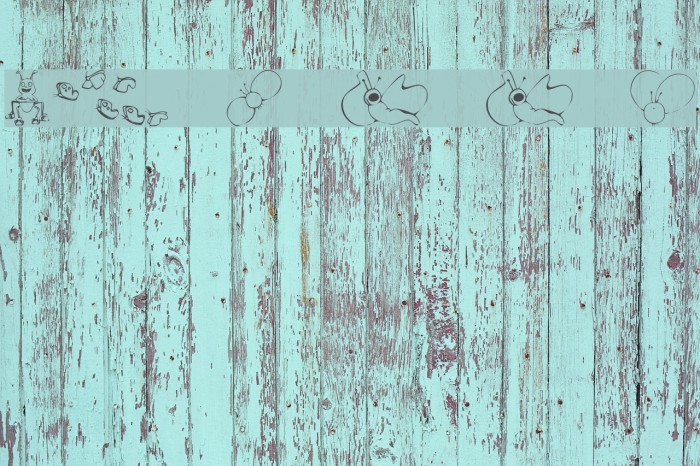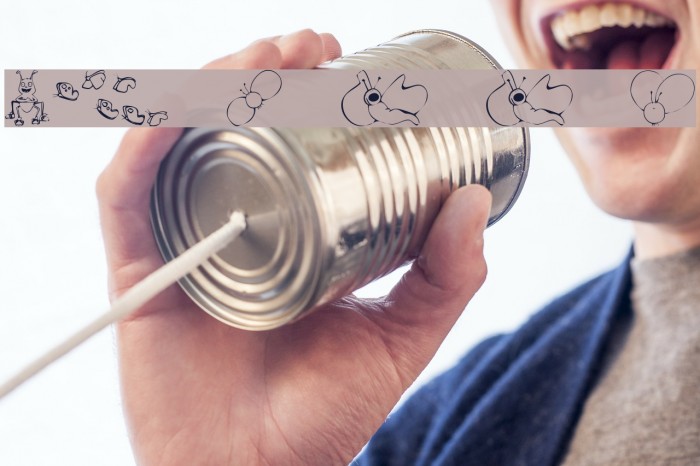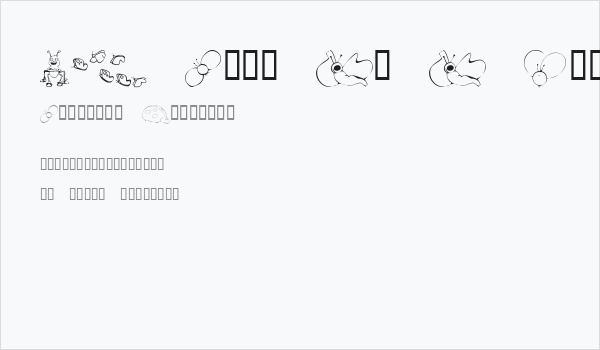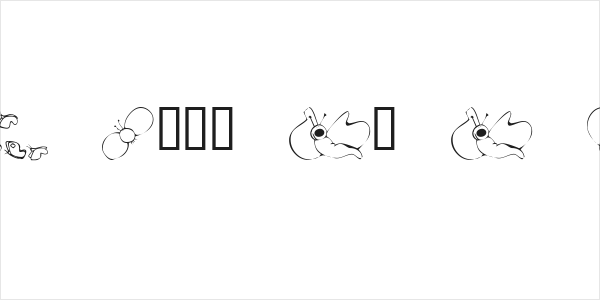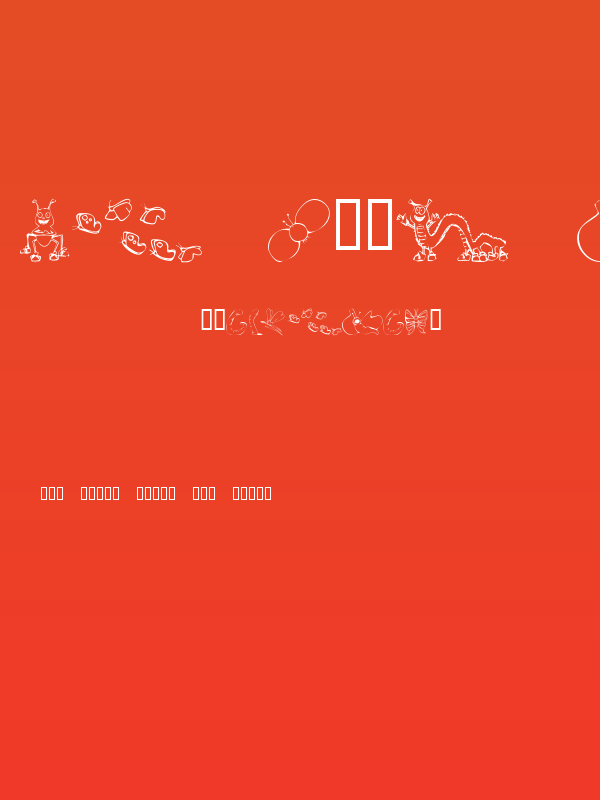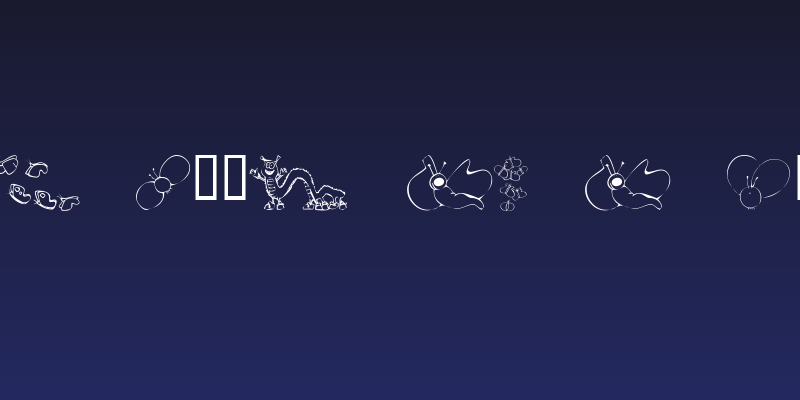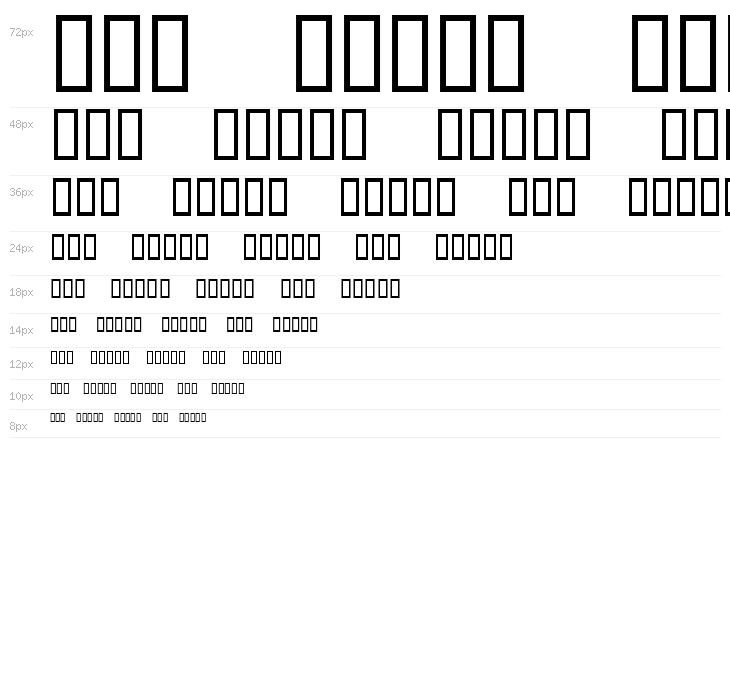
KR Cute As A Bug Font
KR Cute As A Bug Description
This whimsical and playful font features a series of charming bug and insect illustrations that replace traditional alphanumeric characters. Each character is uniquely designed to resemble various insects like snails, caterpillars, butterflies, and ladybugs, adding a delightful and quirky touch to any project. The font is highly decorative, with intricate details that bring each insect to life, making it perfect for creative and fun designs. Its unique style is ideal for children's projects, nature-themed events, or any design that requires a touch of whimsy and creativity.
| Overall Style | Whimsical |
| Use Case | Logos, Decorative text, Children's projects |
| Proposed Projects | Ideal for children's books, nature-themed invitations, educational materials, and playful branding. |